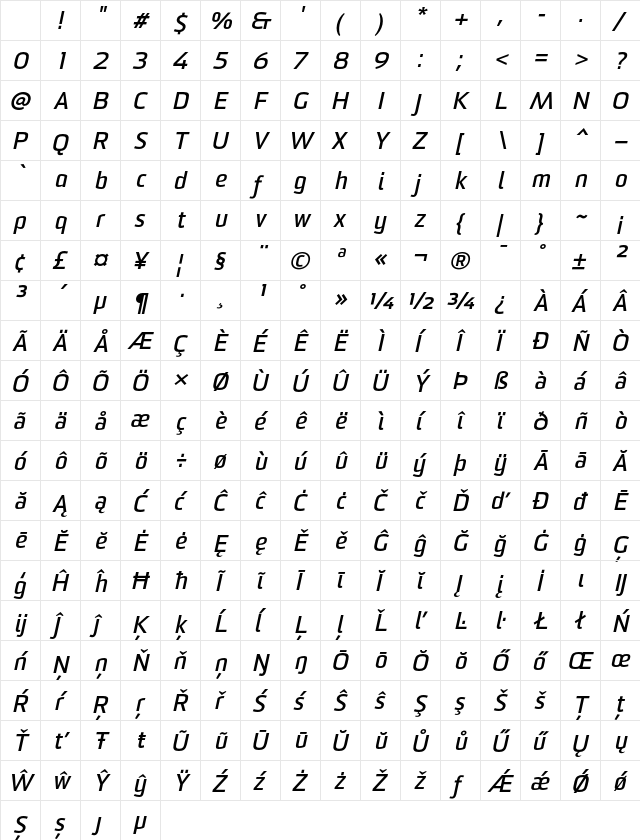
Sommet is a composed and adaptable typeface that performs quietly and consistently across a wide range of design contexts. The slanted form adds forward momentum and visual energy. Its bold stroke weight gives it real presence on the page.
Pro Tip: Use Sommet for emphasis, pull quotes, and subheadings where its slanted energy can add rhythm to the layout.